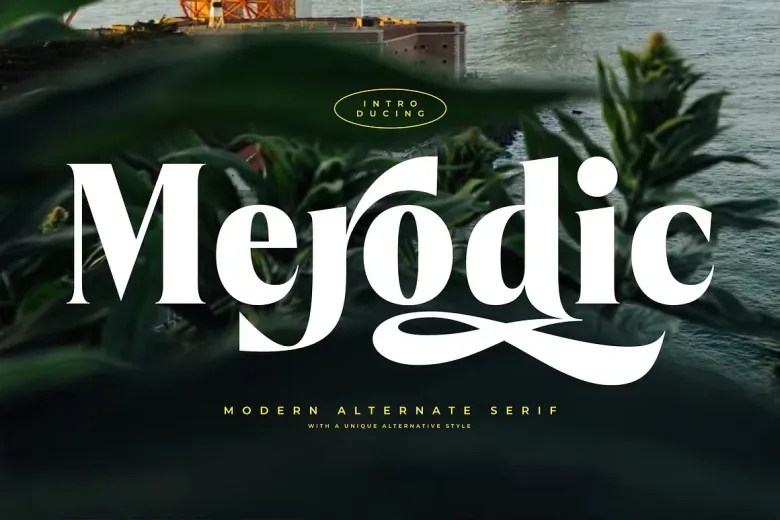
Merodic Font
Merodic is an eye-catching font that brings a classic style to contemporary design needs. Ideal for trademarks, logos, and headlines, Merodic stands out with its timeless charm and flexibility. This font offers a broad range of Basic Latin Glyphs along with alternative characters, allowing for the creation of distinctive and memorable designs. With support for 64 languages, it caters to a global audience while maintaining its old-fashioned aesthetic, making it a versatile choice for diverse design projects.
Equipped with Private Use Area (PUA) features, Merodic allows for even more customization, providing designers with the tools to adapt the font to their specific needs. This combination of elegance and vintage appeal makes Merodic not only a functional typeface but also a powerful asset in elevating artistic endeavors. Whether used for branding, editorial work, or any other creative application, Merodic ensures a classic touch with modern flexibility.